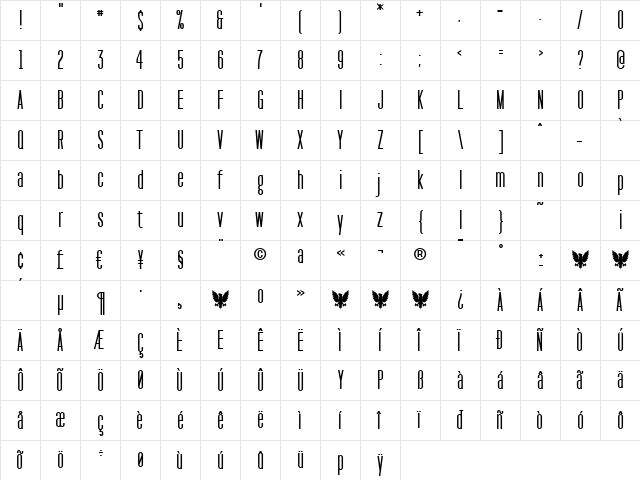
Pakt Condensed SemiBold Font Preview
| Foundry | YouWorkForThem |
| Designer | Michael Cina |
Design Context for Pakt Condensed Typeface
Pakt Condensed offers clean, dependable letterforms without strong stylistic allegiance, making it a practical choice for designers who need flexibility. The heavy weight commands attention and anchors typographic hierarchies. The condensed width makes it efficient for tight spaces without sacrificing legibility.